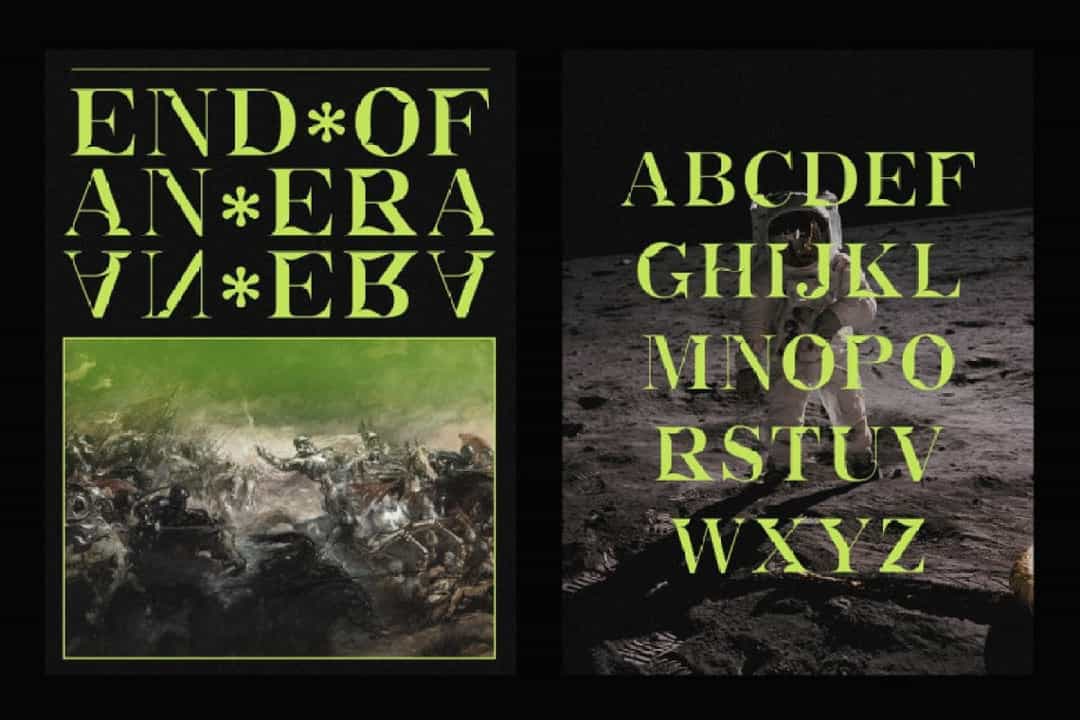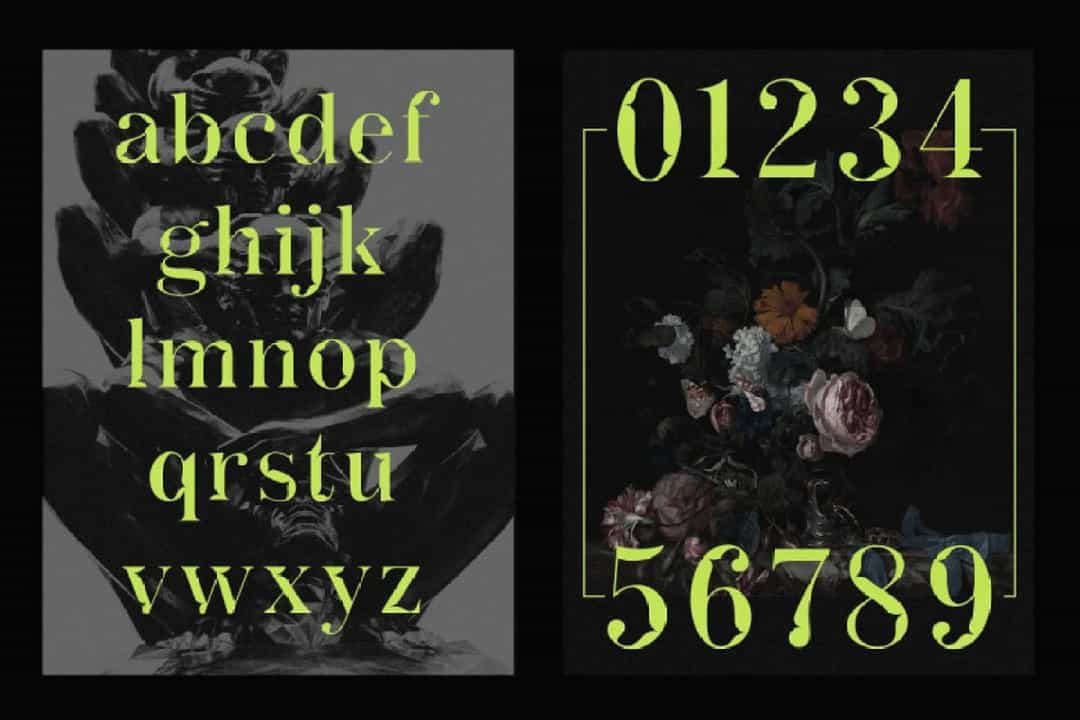
Actu is a stylish display serif typeface inspired by traditional serif styles with modern touches incorporated. Actu offers multiple ways for use in editorial or graphic designs.